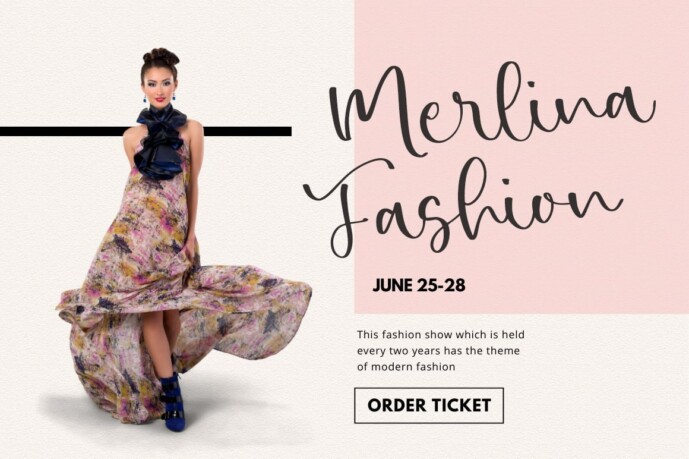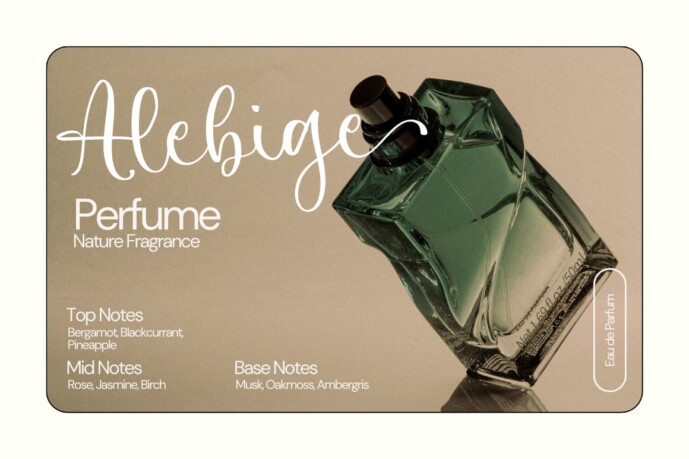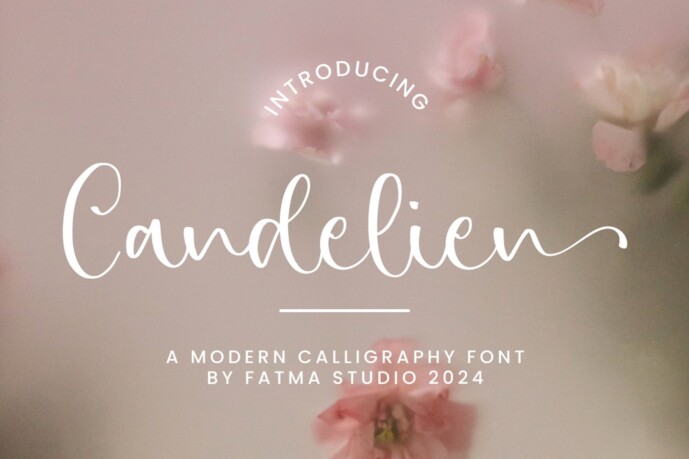
Candelien Font
Designer: fatmastudio
Candelien Font is a charming and delicate font that exudes elegance and class. This font was specially designed for those who need a beautiful and refreshing look for their designs.